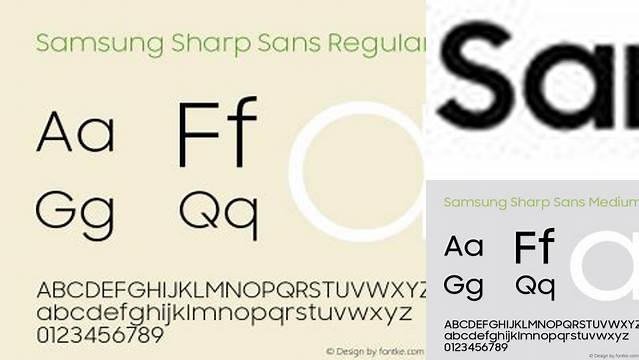
Hey guys! If you're on the hunt for the Samsung Sharp Sans font family and are looking for a free download, you've landed in the right place. This guide will walk you through everything you need to know, from what makes this font so special to where you can snag it without spending a dime. We'll cover the history, the design elements, and even some tips on how to best use the font to make your designs pop. Let's dive in and get you started with this awesome font!
Understanding the Samsung Sharp Sans Font Family
Samsung Sharp Sans isn't just another font; it's a statement. This typeface was crafted with a modern, sleek aesthetic in mind, perfect for digital interfaces and clean, contemporary designs. The Sharp Sans family is a versatile font, offering a range of weights and styles, which gives designers tons of flexibility. From thin and light to bold and black, you can find a style to fit almost any project. This is one of the main reasons why it's so popular for everything from website headers to mobile app interfaces. The font's clean lines and excellent readability make it a favorite among both designers and end-users. Its design is not only modern but also highly functional, ensuring that the text is easily readable across various screen sizes and resolutions. When you delve into the details, you'll find that the carefully considered kerning and spacing contribute significantly to its visual appeal. The font has been designed to provide an optimal reading experience, especially in digital environments. This meticulous attention to detail ensures that the overall design looks polished and professional, whether used in large headlines or small body text.
If you're wondering what makes Samsung Sharp Sans stand out from the crowd, consider its specific design features. The font typically includes both uppercase and lowercase letters, numerals, and a range of special characters. This broad character set is a massive advantage for any designer. You have the flexibility to craft designs that work internationally, as the character set covers different languages and symbols. The font's legibility is another significant factor. The designers have carefully considered the shapes of each letter, ensuring they're instantly recognizable. This meticulous design helps avoid any potential confusion, which can sometimes happen with other fonts. When you start to really pay attention, you'll notice the subtle nuances in each letter that contribute to its overall aesthetic appeal. These subtle details not only enhance the visual experience but also ensure that the font performs well across all devices. It's been optimized for both display and body text, making it ideal for a wide range of design applications. Whether it's used for a website, app, or printed materials, the goal of Samsung Sharp Sans is to offer an unparalleled user experience. It's a testament to the fact that thoughtful design can make a huge difference. The creators wanted to make something modern, elegant, and highly functional, and that is exactly what they achieved.
Key Characteristics and Design Elements
Let's talk about what actually makes Samsung Sharp Sans tick. This font is characterized by its clean, geometric forms. Think about those modern interfaces you love – chances are, this font might be a part of it. These clean lines are designed to be easy on the eyes, making it perfect for digital screens where readability is key. The design of Samsung Sharp Sans is carefully balanced; this balance makes it appealing to a wide range of users. The font's versatility comes from the range of weights it offers. The bold weights are perfect for headings, making them pop and grab your attention, while the lighter weights offer a more subtle and refined look for body text. This is a real game-changer for designers who need a cohesive and consistent look across different design elements. The developers of this font were also aware of the needs of the target audience. The font has been designed to be flexible, making it an essential tool for any designer's toolkit. This allows for different combinations and variations, which provides designers with the means to craft a wide range of designs. No matter the project's requirements, Samsung Sharp Sans is equipped to handle the task. This has played a vital role in its wide adoption and sustained popularity. It also means that the font doesn't just look good – it works. The designers put in a lot of work to make sure that the font is optimized for everything from the smallest screens to the largest displays. This attention to detail is what makes this font stand out from the rest.